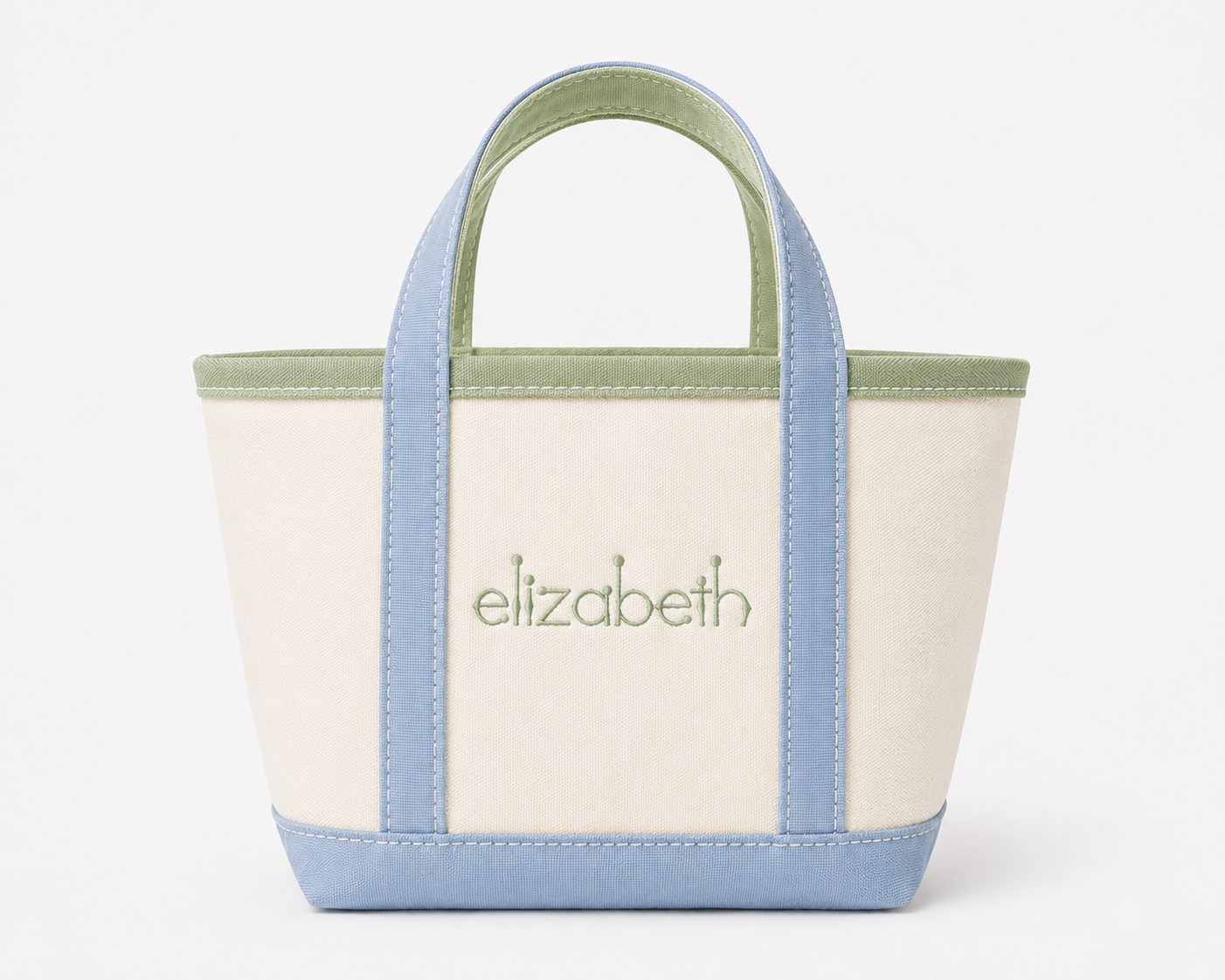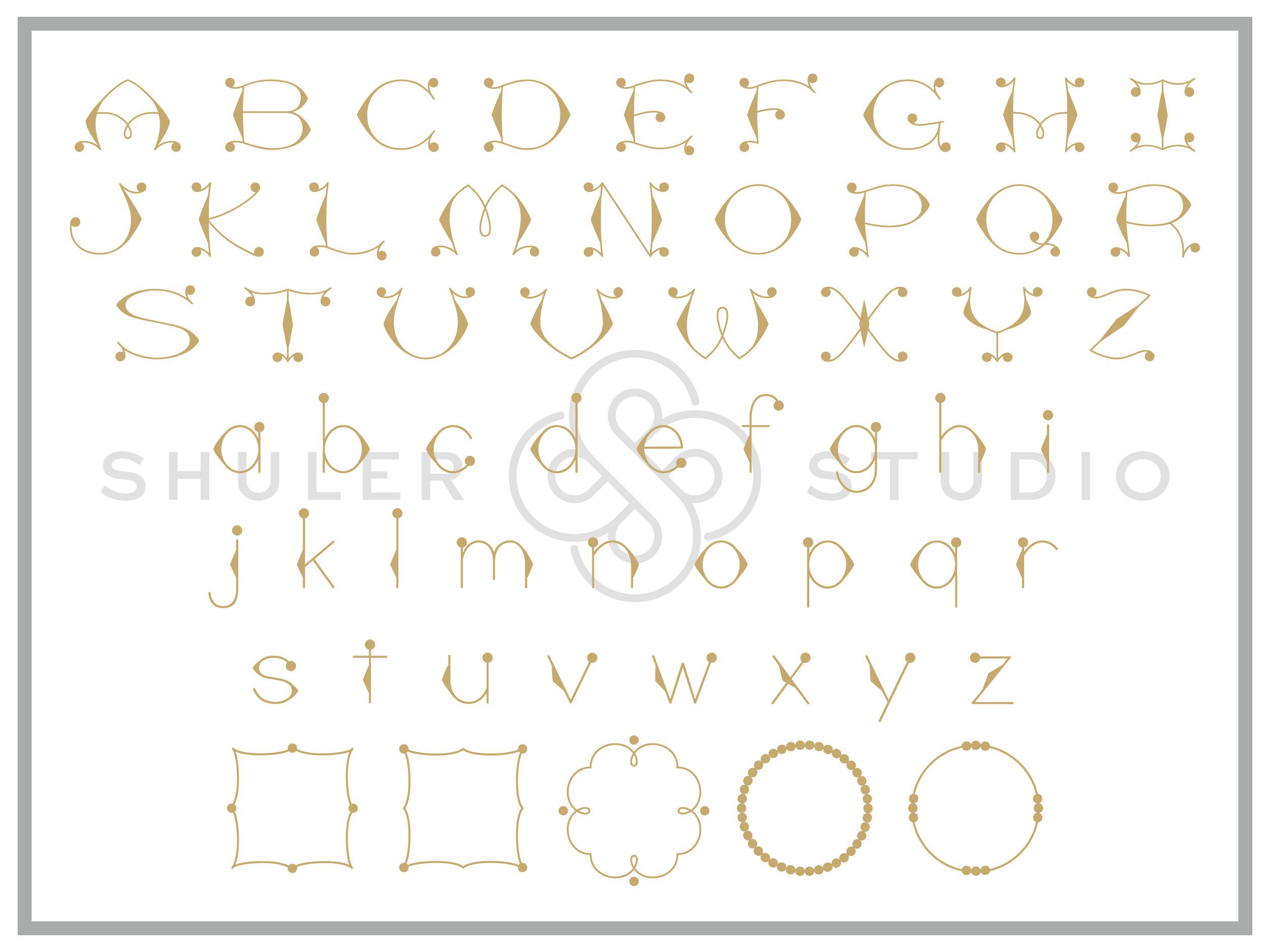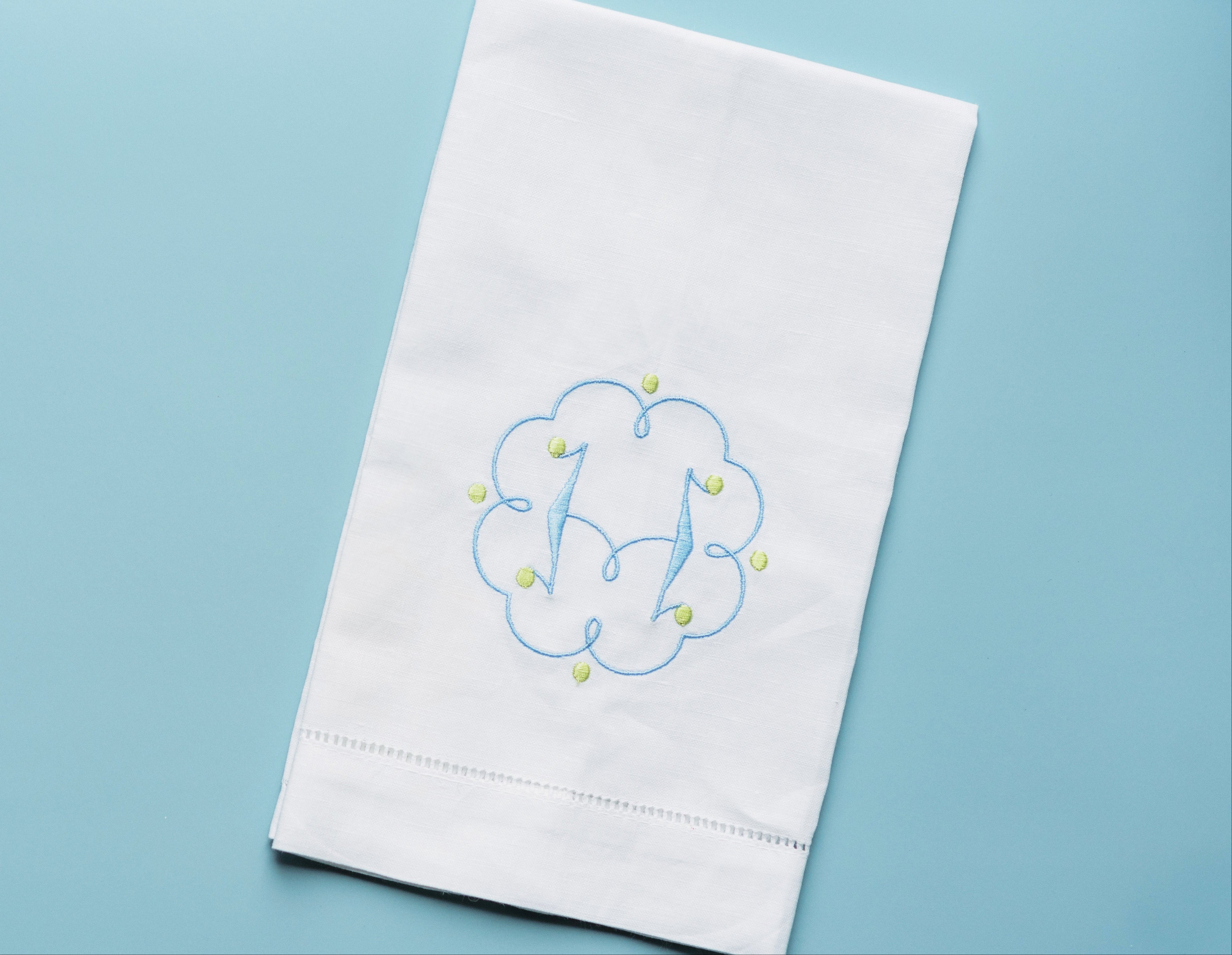
Our Single Bombay Font is a font that marries Art Deco style with whimsical storybook elegance. This fun and funky font designed with playful curves and signature ball ends was designed to stand out!
This amazing set includes 26 uppercase letters, 26 lowercase letters, and 5 frames.
- Frames correspond to the letters
Perfect for embroidery, the careful attention in the digitization of each design makes personalization unique and beautiful!